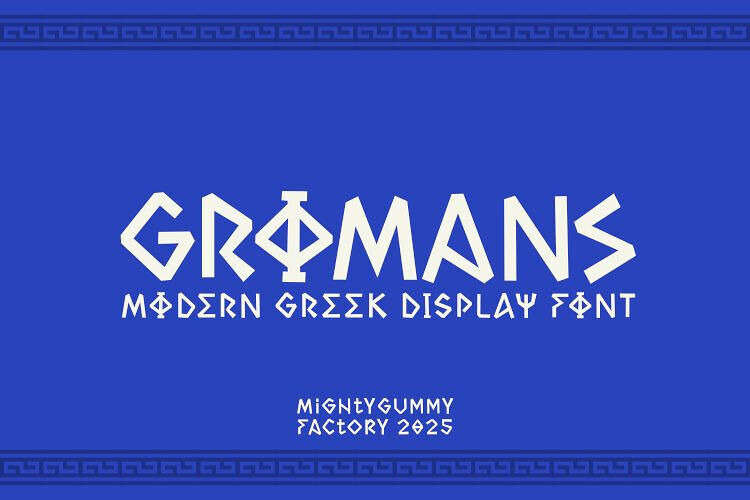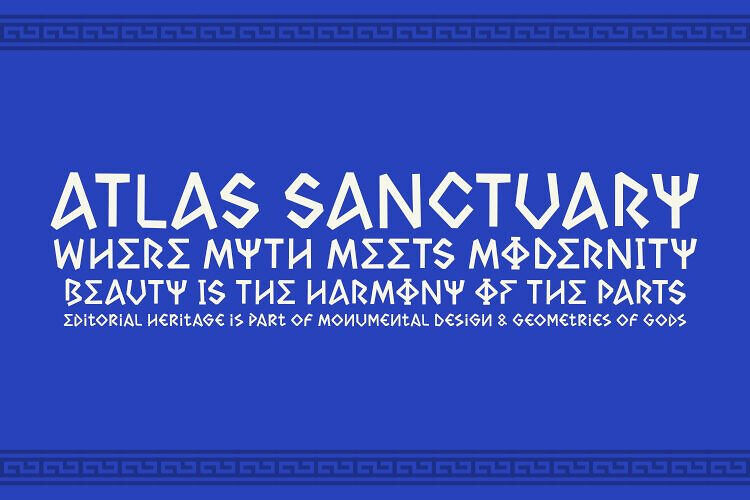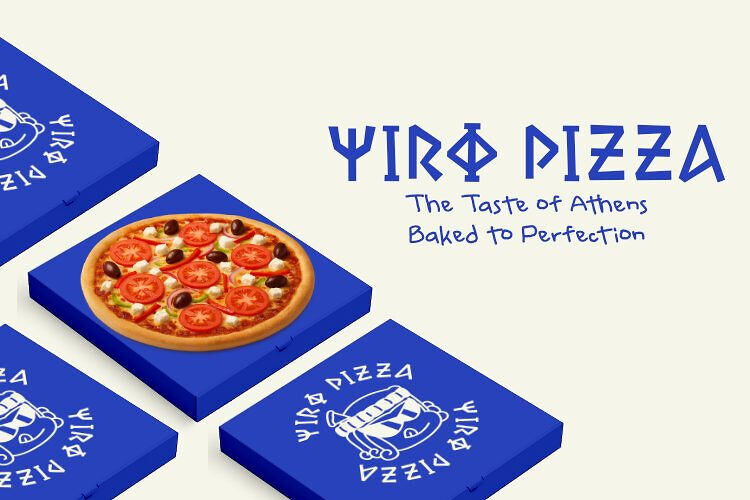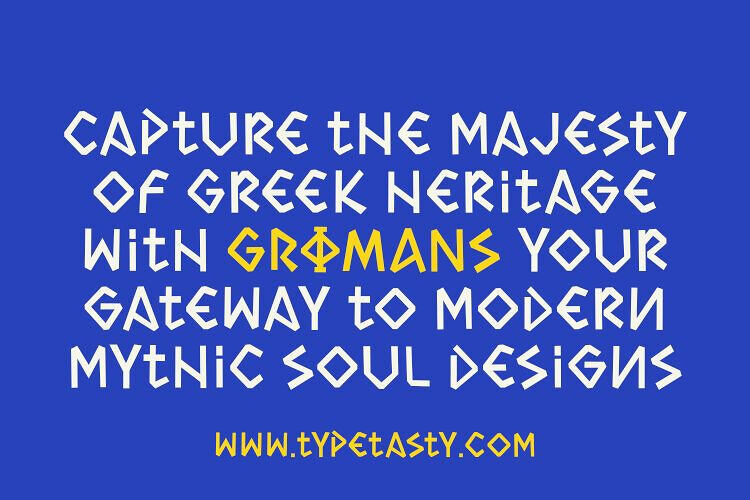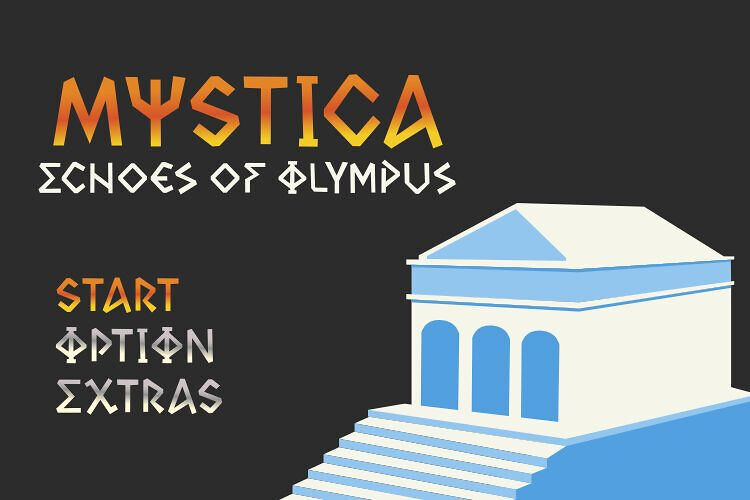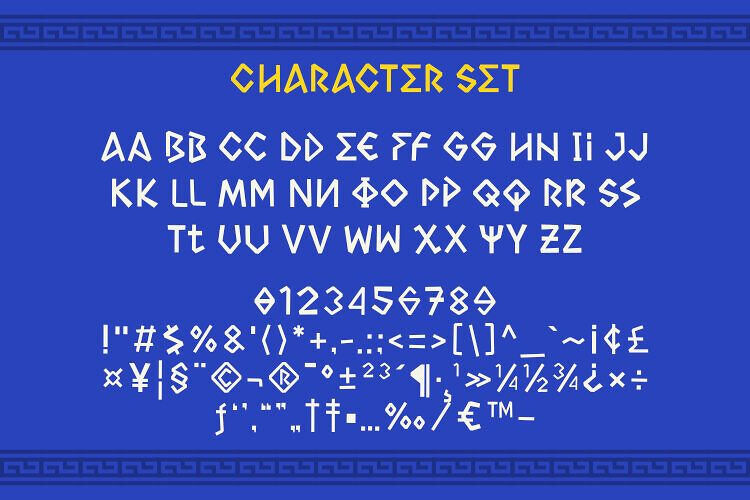
GROMANS is a bold Greek-inspired display font designed for creatives who want to blend ancient elegance with modern design. Its geometric shapes and monumental style make it perfect for logos, posters, fashion branding, editorial layouts, and product packaging.
Inspired by the timeless beauty of Greek architecture and mythology, GROMANS delivers a powerful and stylish typeface that elevates any project. Available in OTF, TTF, and WOFF, it’s ready to bring a mythic touch to your next design.